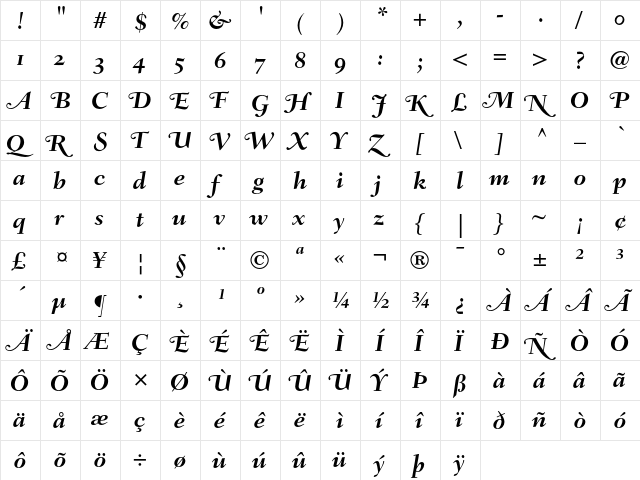
Fairfield LH 76 Swash Bold Italic Old Style Figures
Design Context for Fairfield LH Typeface
Fairfield LH brings a calligraphic fluidity to the page — its connecting strokes and expressive curves give it an unmistakably human quality. Its bold stroke weight gives it real presence on the page.
Font Pairing: Combine Fairfield LH with a simple geometric sans for maximum contrast — the tension between flowing curves and clean structure is a classic typographic pairing.
Pro Tip: Use Fairfield LH for short runs of text — names, titles, or taglines. Extended body copy in script faces tires the eye quickly.